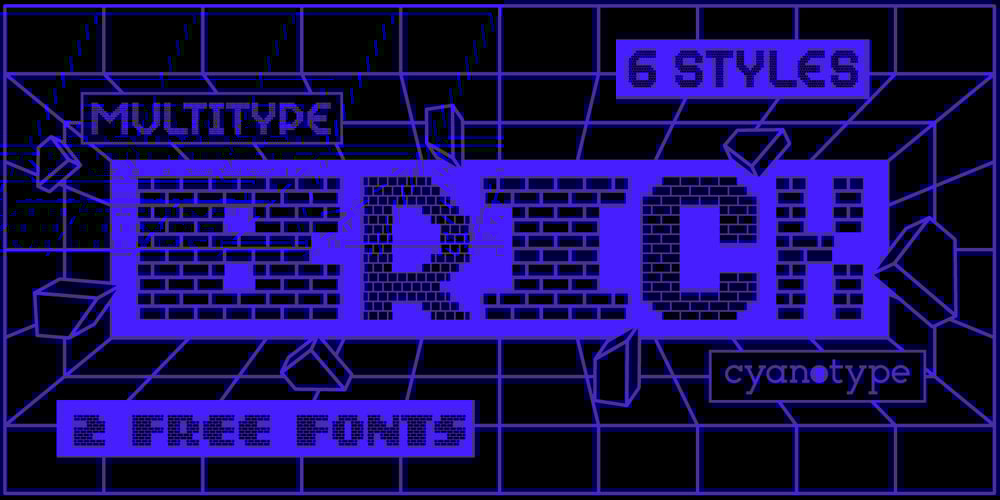
MultiType Brick Font Family was designed by Damián Guerrero and published by Cyanotype. MultiType Brick contains 6 styles and family package options. MultiType Brick, an all caps typeface focused in display purposes. 6 styles with retro gaming vibes.This is the fifth release of an expanding multiverse of mixable fonts. The whole family of typefaces has been designed to work at big sizes and display purposes such as branding, headlines, thumbnails, posters and animations. You can swap between the three additional alternate sets through all the styles to add diversity to your composition, even in Cyrillic.MultiType Brick is inspired by video games, arcades and block patterns. Have fun mixing all the styles in your projects.